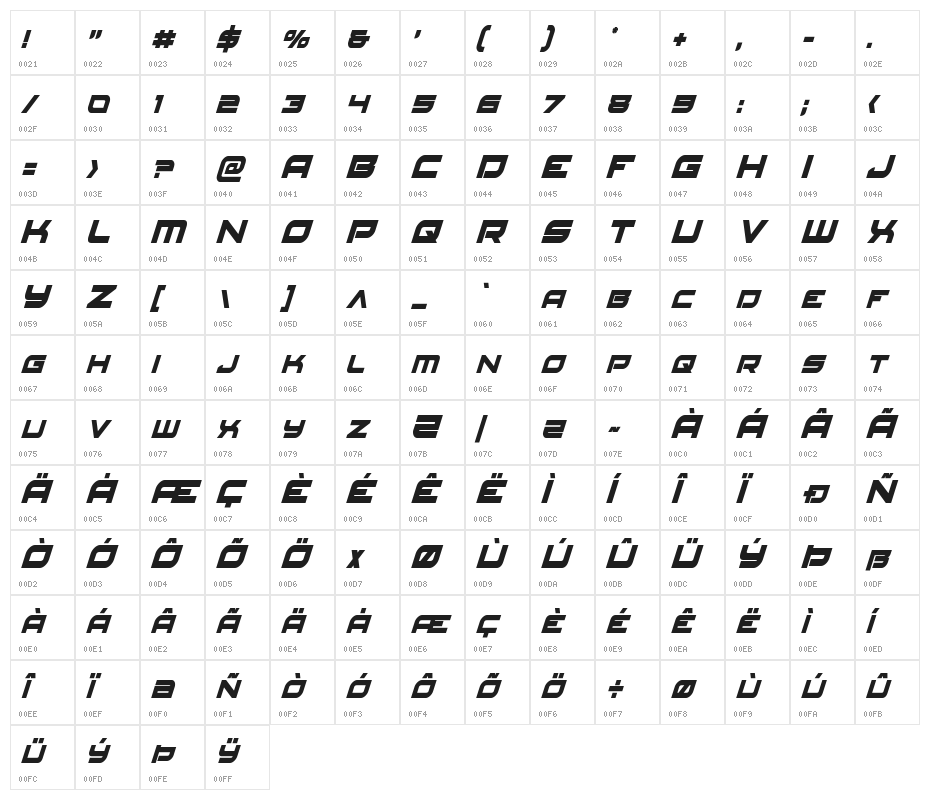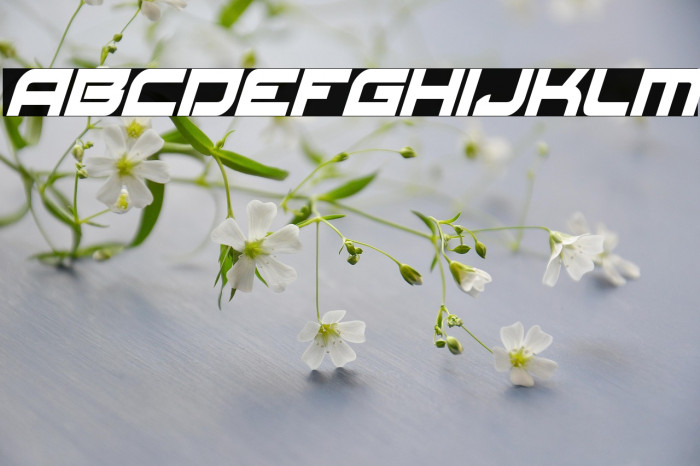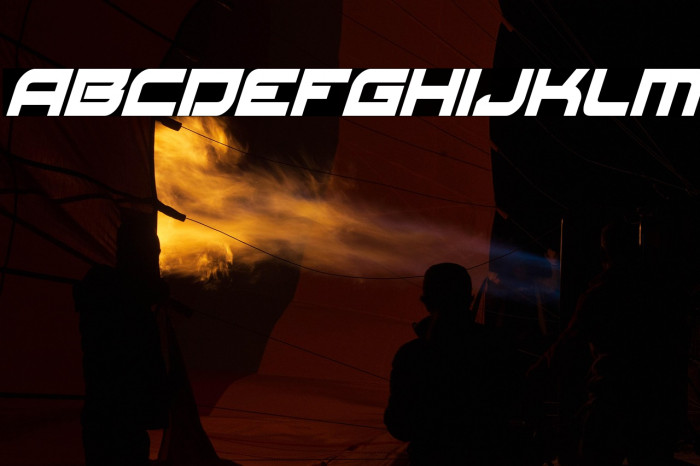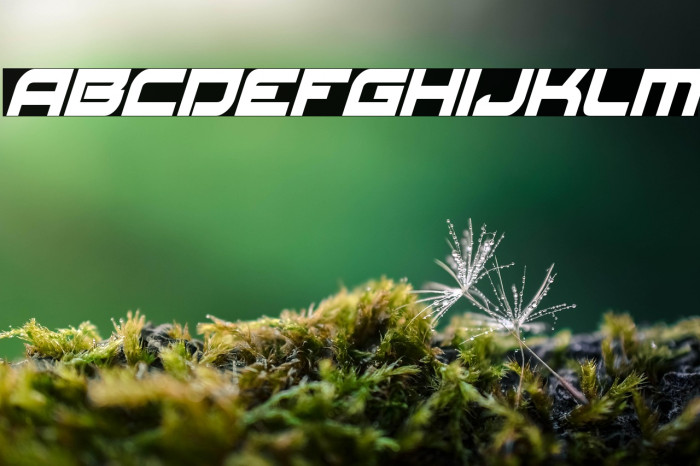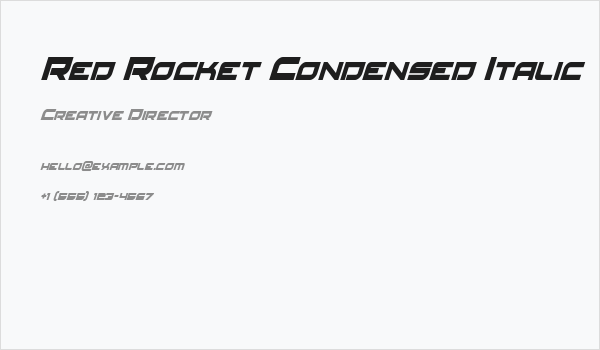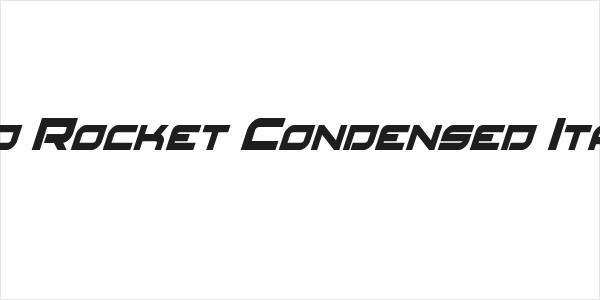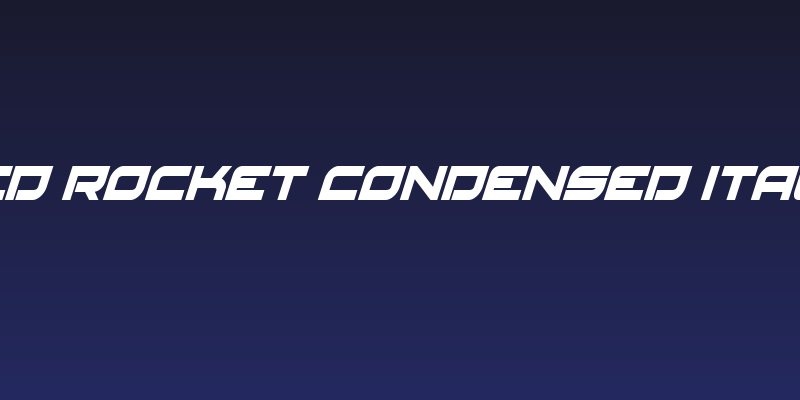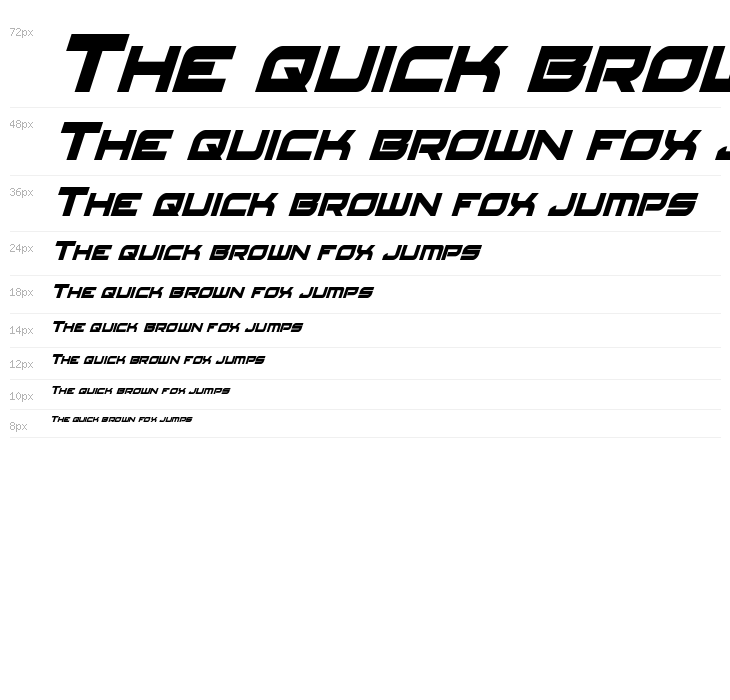
Red Rocket Condensed Italic Font
Red Rocket Condensed Italic Description
This font exhibits a dynamic and futuristic style with a strong emphasis on angular and geometric shapes. The characters are condensed and italicized, giving them a sense of motion and speed. The bold strokes and sharp edges contribute to a modern and edgy appearance, making it suitable for attention-grabbing designs. The uppercase and lowercase letters maintain a consistent style, while the numerals and special characters complement the overall aesthetic. This font is ideal for projects that require a bold and impactful visual presence.
| Proposed Projects | Ideal for sports branding, automotive designs, tech-related projects, and dynamic posters. |